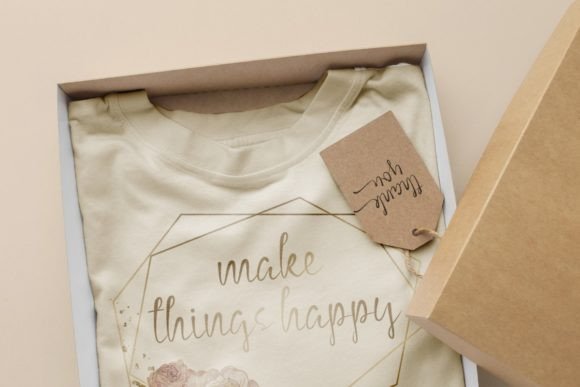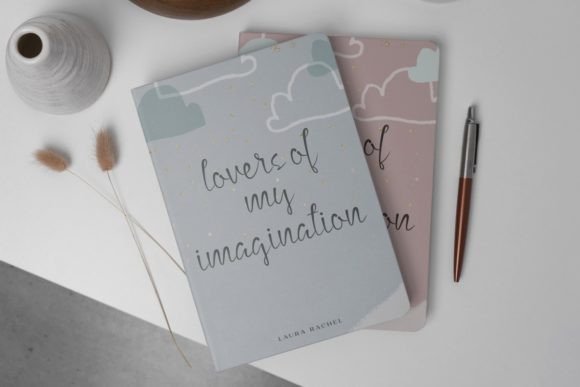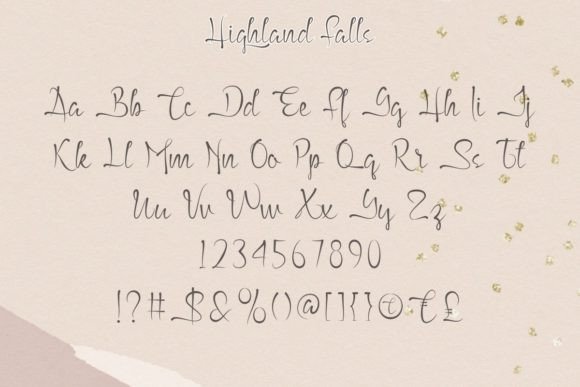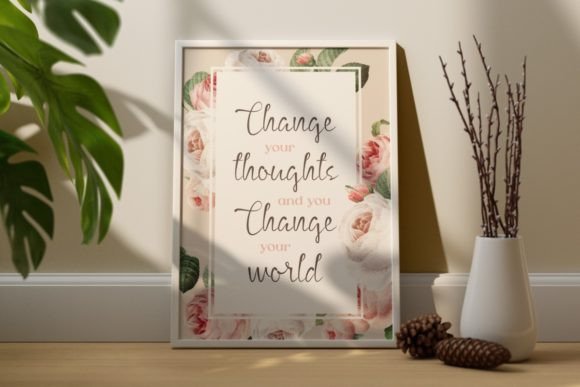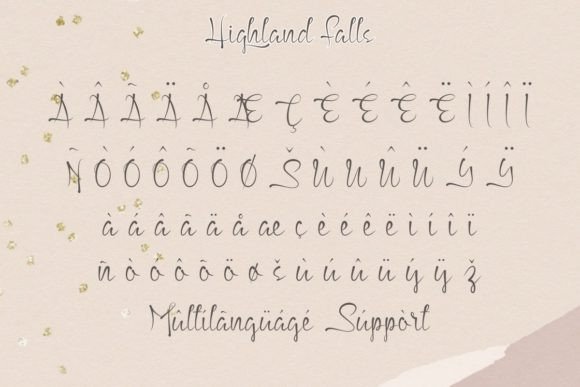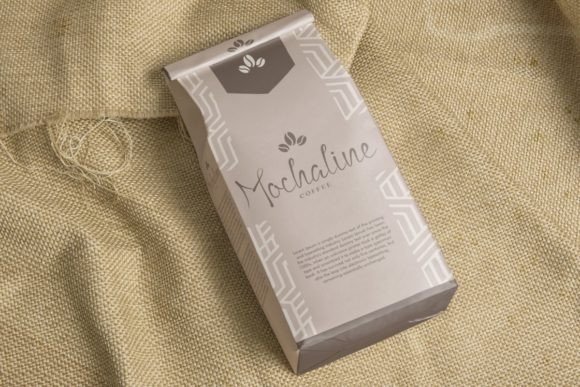
Introduction to Highland Falls Font
There’s something magical about discovering a new font that sparks creativity and sets your imagination free. For designers, finding the perfect font can be a game-changer, elevating a project from ordinary to extraordinary. And that’s exactly what the Highland Falls Font does – it adds a touch of elegance and sophistication to any design.
As a passionate and sweet calligraphy typeface, Highland Falls Font boasts distinctive characters that exude a sense of spontaneity and refinement. Its PUA encoding ensures that you can access all the captivating glyphs and swashes with ease, making it an invaluable design resource for creative projects. Whether you’re working on a high-quality brochure, a free download campaign, or a design that requires a transparent background, Highland Falls Font is the perfect choice.
With its unique charm and versatility, Highland Falls Font is a valuable addition to any designer’s toolkit. So why settle for an ordinary font when you can have an extraordinary one that brings your creative vision to life?
Key Features of Highland Falls Font
- High-quality font design, ideal for creative projects
- Unique characteristics: elegant, cursive script with a touch of rustic charm
Honest Review: Highland Falls Font
Here are some things that work well: ✨ High-quality typography, ✨ a wide range of font styles, and ✨ transparent background options, making it easy to integrate into your creative project.
Some things to keep in mind: ⚠️ Limited font sizes and weights may restrict your design flexibility. ⚠️ Not ideal for use in large-scale or complex typography projects.
- High-quality typography
- Wide range of font styles
- Transparent background options
The Highland Falls Font is a high-quality design resource that can elevate your creative project with its unique and elegant style. It’s available for free download, making it an excellent choice for designers and artists.
The Highland Falls Font is ideal for various design projects, including wedding invitations, business cards, and branding materials. Its elegant style makes it perfect for formal events and corporate designs.
To get the most out of the Highland Falls Font, use it on a transparent background to create a seamless design. You can also experiment with different font sizes, colors, and styles to achieve the desired effect.
Alternatives to Highland Falls Font
Montserrat is a high-quality sans-serif font perfect for design projects that require a modern, urban feel. It’s a free download and ideal for use on a transparent background. Suitable for creative projects such as logos, brochures, and social media graphics.
Montserrat is similar to Highland Falls Font in its clean and minimalist design, but it has a more geometric feel and a wider range of font weights.
Great Vibes is a stylish script font that’s perfect for design projects that require a touch of elegance and sophistication. It’s a free download and ideal for use on a transparent background. Suitable for creative projects such as invitations, wedding stationery, and product branding.
Great Vibes is similar to Highland Falls Font in its cursive design, but it has a more flowing and organic feel, making it ideal for projects that require a sense of movement and energy.
Playfair Display is a high-quality serif font perfect for design projects that require a touch of luxury and sophistication. It’s a free download and ideal for use on a transparent background. Suitable for creative projects such as magazines, books, and high-end product branding.